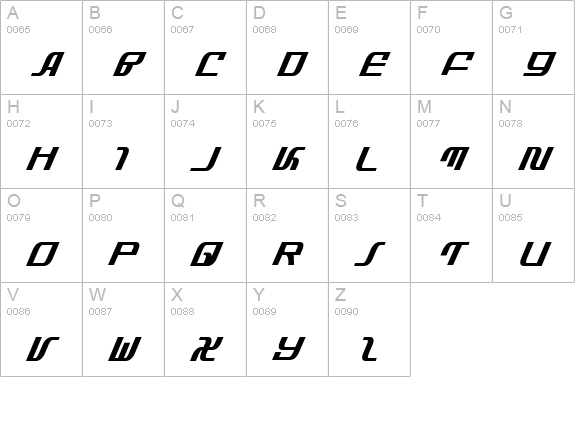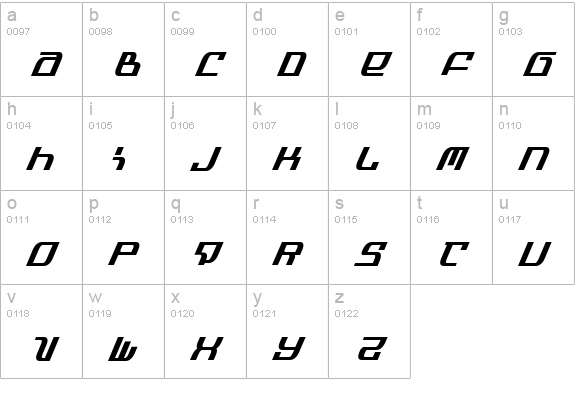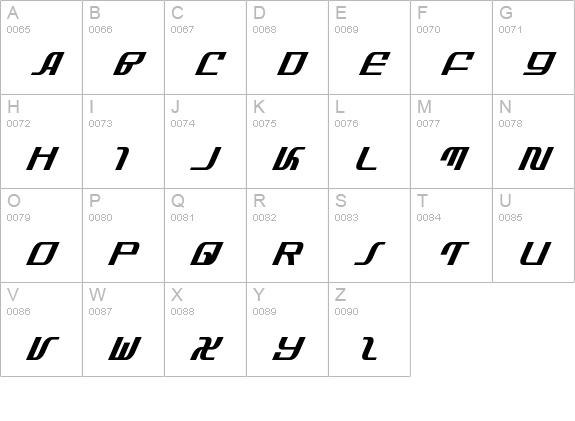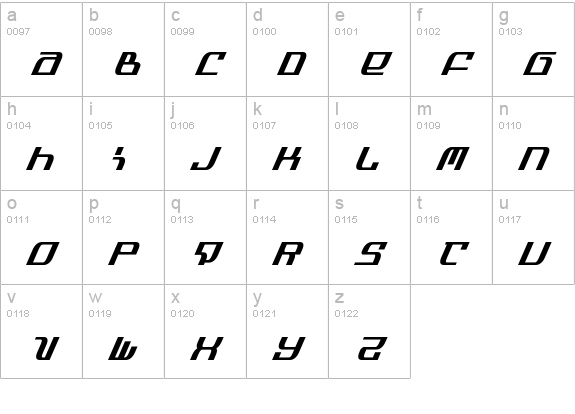
Infinity Formula Cond Italic is a distinctive, condensed-width, italic variant in the Infinity typeface family \xE2\x80\x94 well suited to design and typography projects.
Infinity Formula Cond Italic font is a sleek and modern typeface that exudes sophistication and elegance. With its stylish italicized design, this font is perfect for adding a touch of flair to your projects. The condensed nature of the letters allows for efficient use of space without sacrificing readability. What makes Infinity Formula Cond Italic font even more appealing is that it is available for free download at FontsMarket.com. This means you can easily access this stunning font to elevate your designs without any cost. Whether you're working on branding materials, invitations, or any other creative project, Infinity Formula Cond Italic font is sure to make a lasting impression.